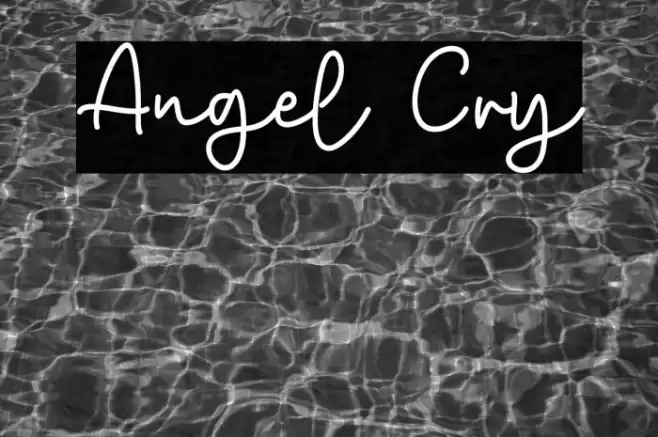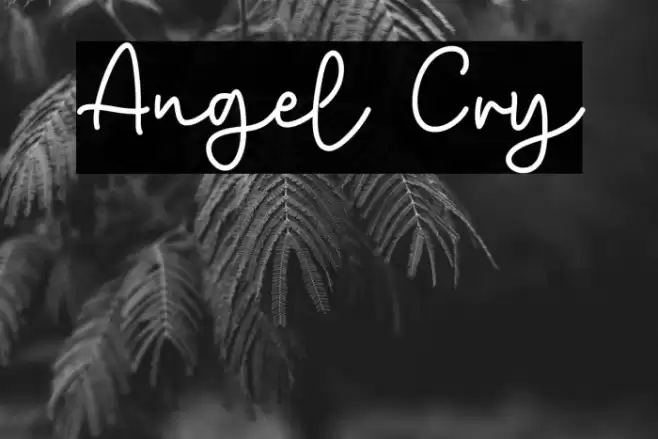
Angel Cry Font
Angel Cry Description
This font features a playful and casual handwritten style with a smooth, flowing appearance. The characters are connected in a cursive manner, giving it a personal and informal touch. The uppercase letters have a slightly larger and more pronounced form compared to the lowercase, which are more rounded and compact. The numerals maintain the same whimsical style, ensuring consistency throughout. Special characters are integrated seamlessly, adding versatility to the font. The overall look is friendly and approachable, making it suitable for projects that require a personal or creative flair.
A playful, handwritten cursive font with a smooth and flowing style from Regular fonts.
- Proposed Projects: Ideal for greeting cards, invitations, personal branding, and creative projects that require a friendly and informal touch.
- Overall Style: Casual, Playful
- Use Case: Logos, Invitations, Personal Branding